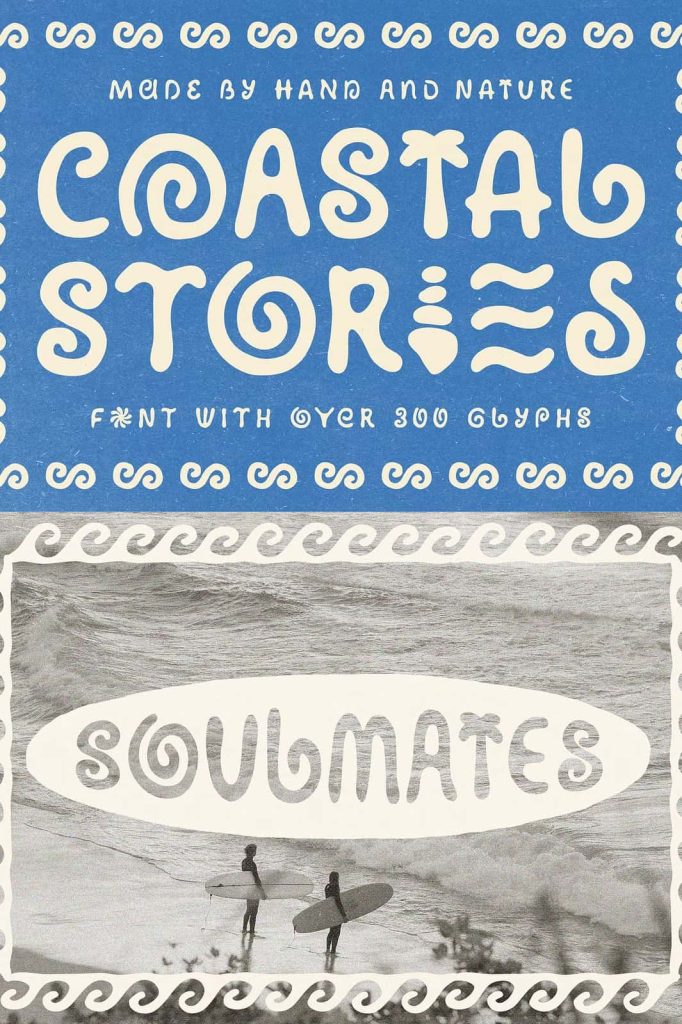
Retro Coastal Font: A Bold Blend of Nostalgia and Modern Style
The Retro Coastal Font feels like sunshine meeting timeless design. Its name evokes the warmth of the seaside — soft waves, salty air, and golden sunlight — but this typeface is far more than a summer accessory. It captures a retro soul that effortlessly adapts to today’s creative world. Every curve, every stroke, and every bold line invites designers to create memorable visual experiences that stand out in any setting.
A Font That Speaks Both Past and Present
This font carries a vintage charm that merges seamlessly with modern aesthetics. It brings a touch of nostalgia without feeling outdated, making it ideal for brands that value both heritage and innovation. Imagine blending retro-inspired design with clean, confident typography that immediately captures attention — that’s the power of this font. It’s crafted for those who love expressive visuals, effortless sophistication, and timeless appeal.
Perfect for Bold and Creative Branding
When used in branding and logo design, this font shines with energy and personality. It’s perfect for businesses that want to build a strong visual identity and leave a lasting impression. Think of bold t-shirts, beach caps, surfboards, tote bags, or eco-friendly packaging. This typeface communicates optimism, confidence, and authenticity, whether printed on merchandise or displayed across digital media.
Ideal for Lifestyle and Wellness Brands
Its fluid and balanced style also makes it a strong choice for wellness and lifestyle brands. From skincare packaging and yoga studio signage to juice bar menus and organic café branding, the Retro Coastal Font brings a natural sense of calm and vitality. It’s expressive yet refined, bold yet approachable — ideal for conveying relaxation, balance, and self-care.
Versatility in Every Application
Beyond the beachy feel, this font’s versatility extends to countless creative uses. It’s equally at home on event posters, vinyl album covers, festival banners, coffee cup designs, and social media campaigns. Designers can use it to create visual stories that feel lively, youthful, and full of motion. Whether displayed in large headlines or paired with minimal graphic layouts, this font consistently delivers a clean, confident look.
Designed for Digital and Print Perfection
Every detail of the Retro Coastal Font has been refined for clarity and balance. Its proportions make it ideal for both digital and print media, ensuring that your message remains legible and stylish across all platforms. The smooth curves and solid structure make it highly readable while maintaining an unmistakable character. It performs beautifully in website headers, marketing materials, product labels, and editorial layouts alike.
Why Choose the Retro Coastal Font
- Timeless Design: Blends vintage charm with modern appeal.
- High Versatility: Works across print, digital, and merchandise.
- Emotional Connection: Evokes nostalgia, positivity, and energy.
- Perfect for Branding: Enhances logos, packaging, and visual storytelling.
By choosing this font, you’re not just selecting a typeface — you’re choosing a design identity that connects with people emotionally and visually. It’s the ideal choice for creatives, entrepreneurs, and brands that aim to communicate authenticity and warmth through design.
Bring Your Brand to Life
Whether you’re launching a new brand, refreshing your visual identity, or designing an event campaign, the Retro Coastal Font is ready to inspire. Its expressive rhythm and nostalgic energy can transform any project into something truly unforgettable. Let your designs shine with the balance of retro charm and modern style — because great typography doesn’t just speak, it resonates.